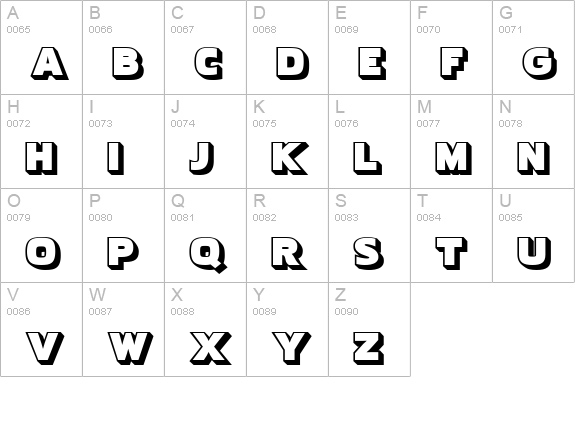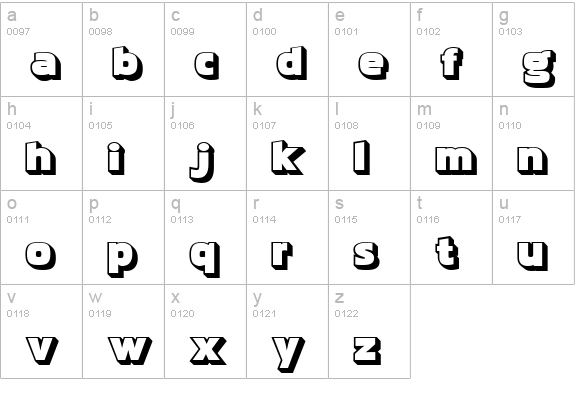
Pakenham Boss Font Details
Pakenham Boss font is a bold and stylish typeface that exudes confidence and sophistication. With its strong, commanding presence and sharp, clean lines, this font is perfect for making a statement in any design project. Whether you're creating a logo, headline, or poster, Pakenham Boss will grab attention and leave a lasting impression. What's even better is that Pakenham Boss font is available for free download at FontsMarket.com. This means you can easily access this premium font without any cost, making it a valuable addition to your font collection. Don't miss out on the opportunity to elevate your designs with the striking Pakenham Boss font – download it for free today!